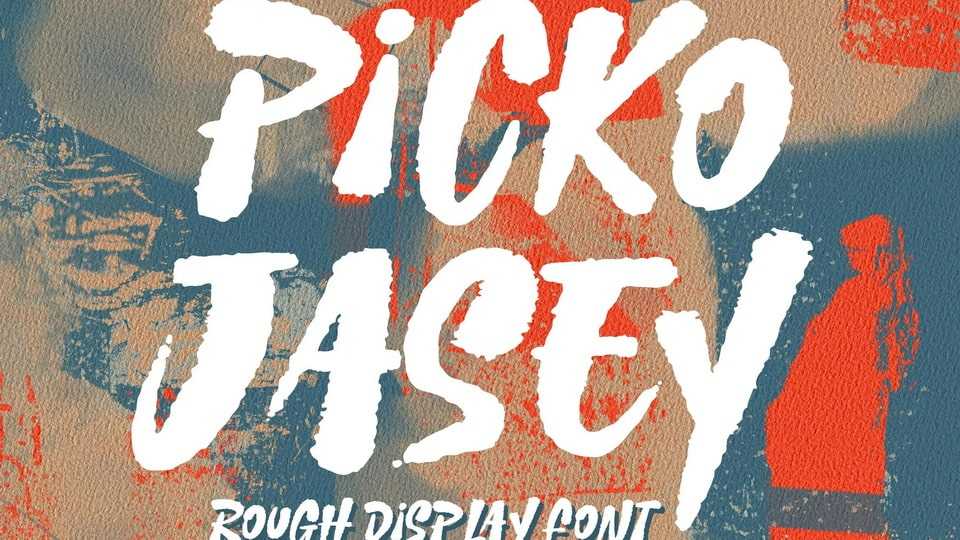
Download Rough Brush font, a modern style and dramatic movement that is written casually and quickly. The best for labels, poster, project designs look modern, authentic and fun.